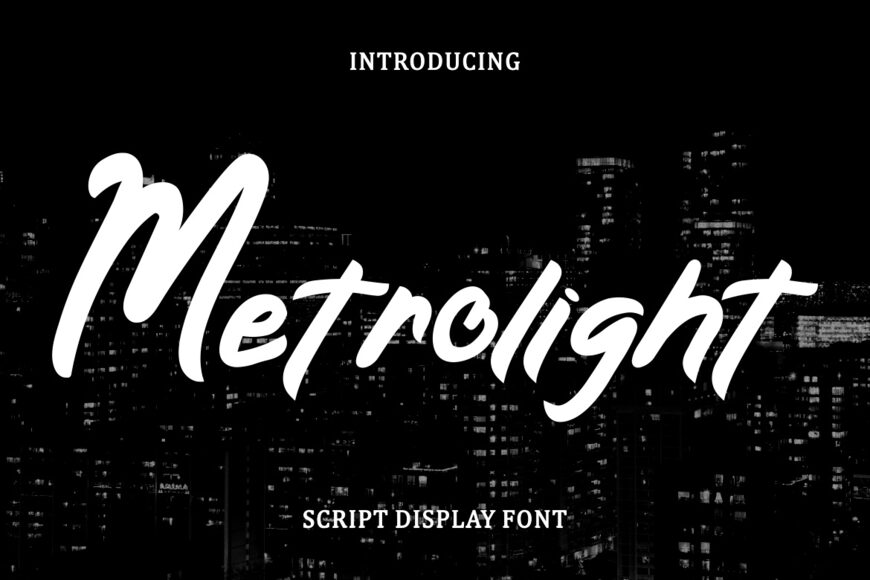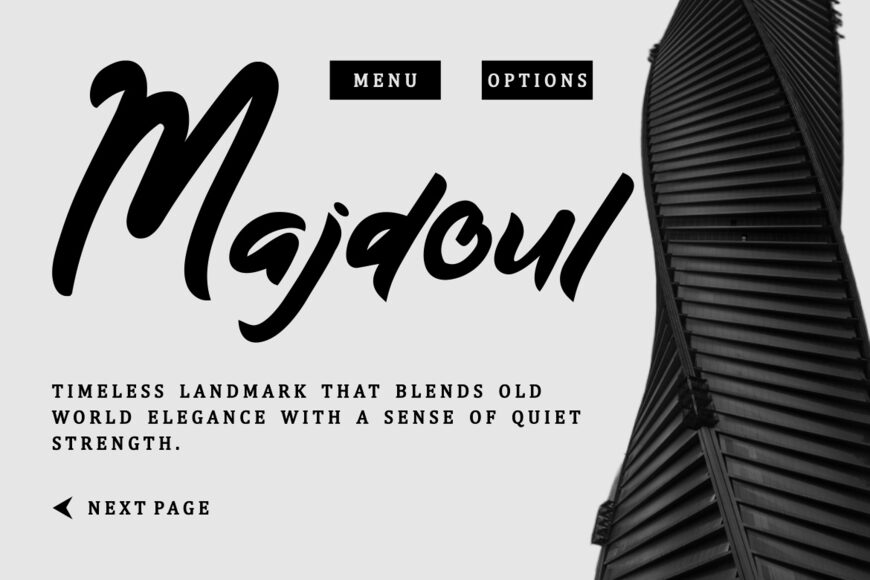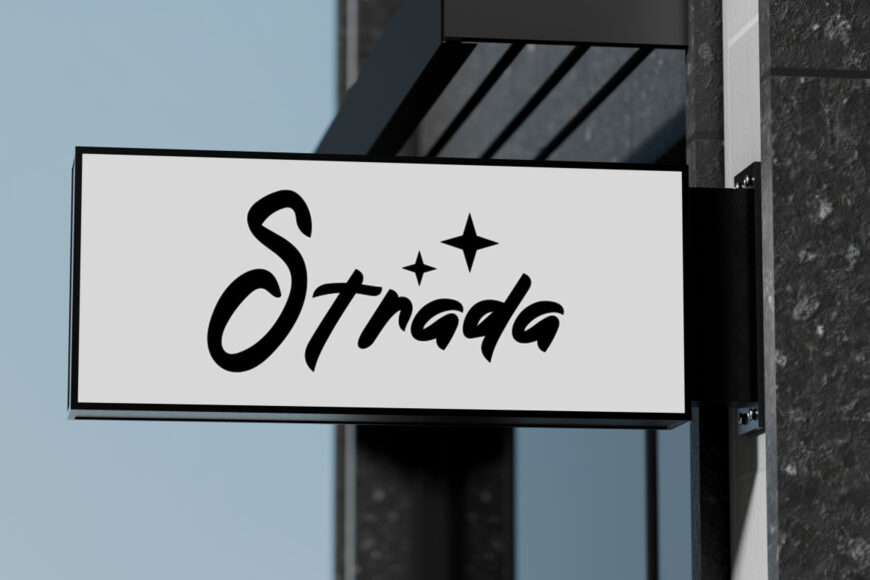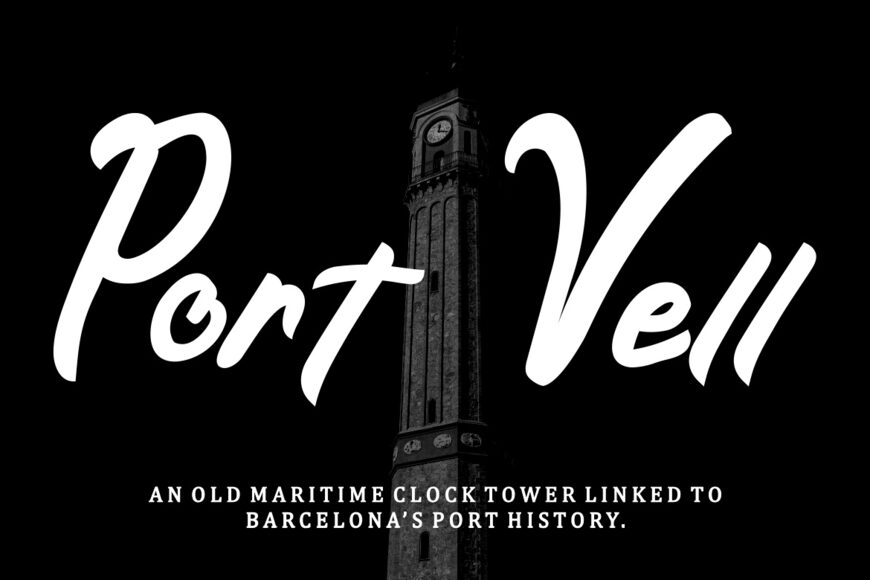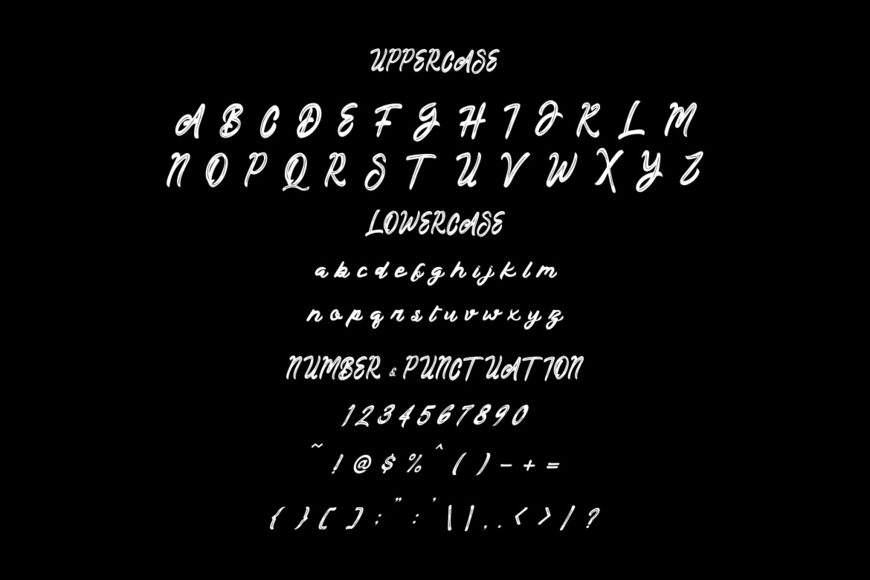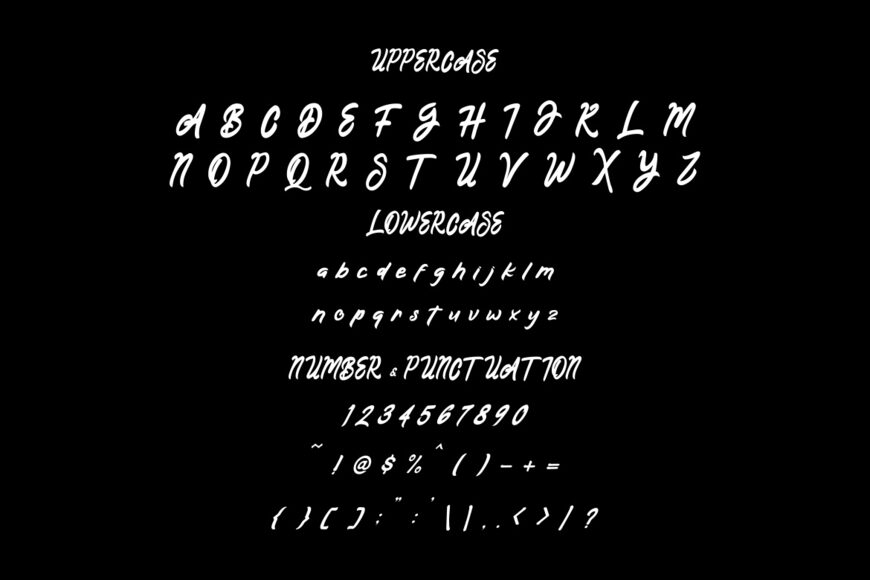
Metrolight Font
Metrolight is a script display font defined by smooth, confident strokes and fluid handwritten movement. Its moderately heavy letterforms feature softly tapered endings, graceful curves, and well-balanced proportions. Tall ascenders and relaxed descenders create an elegant rhythm throughout words and brand names.
Subtle stroke contrast keeps the design clear at display sizes, while organic, slightly dynamic forms add a contemporary urban character. Ideal for expressive titles and bold logo designs, Metrolight’s connected letters create a cohesive visual flow. Its polished yet energetic style helps designers develop memorable brand signatures and distinctive typographic compositions.